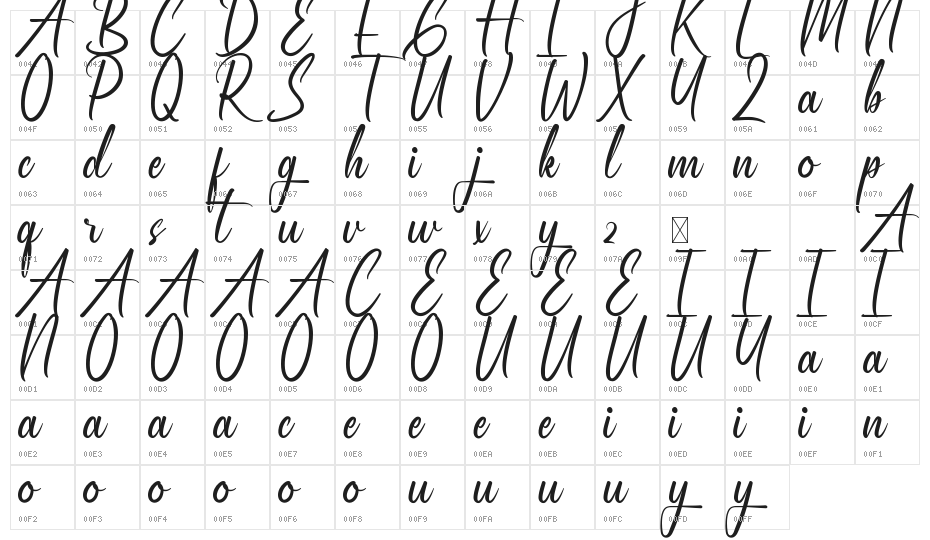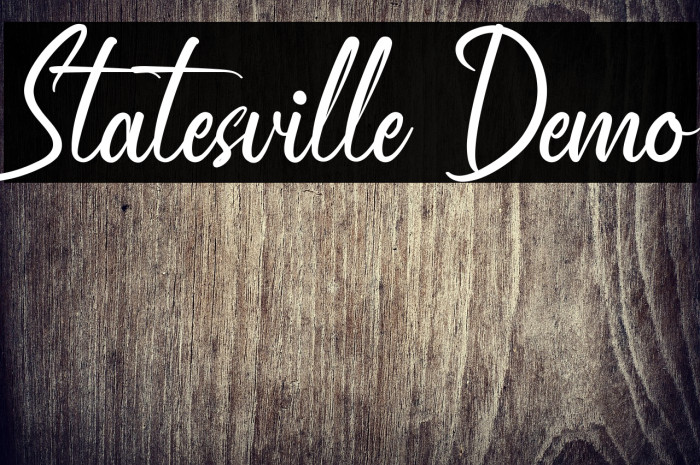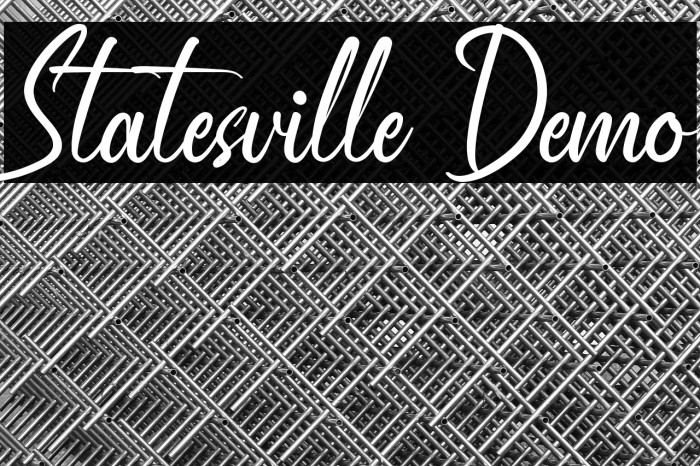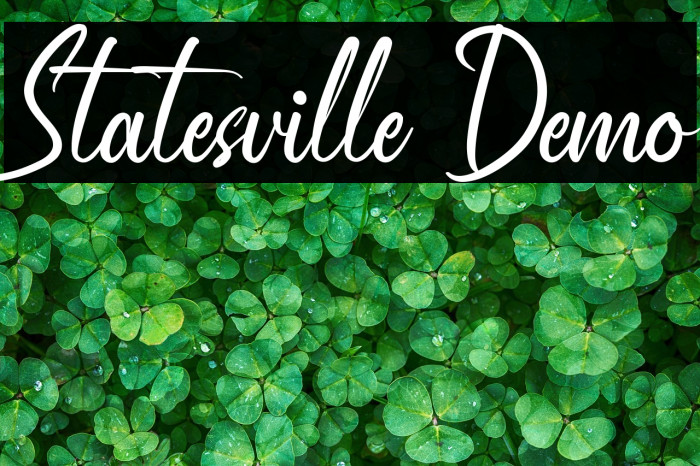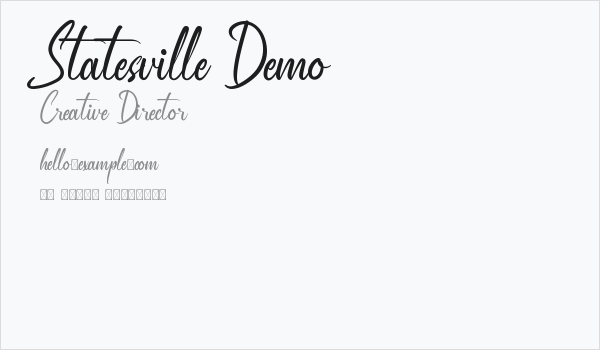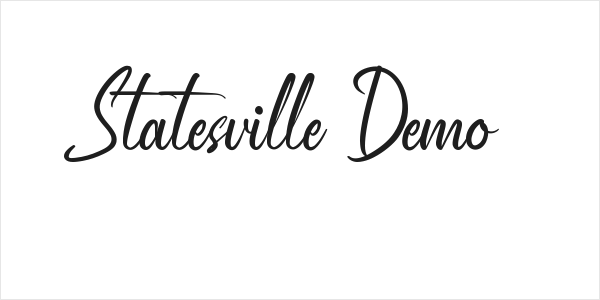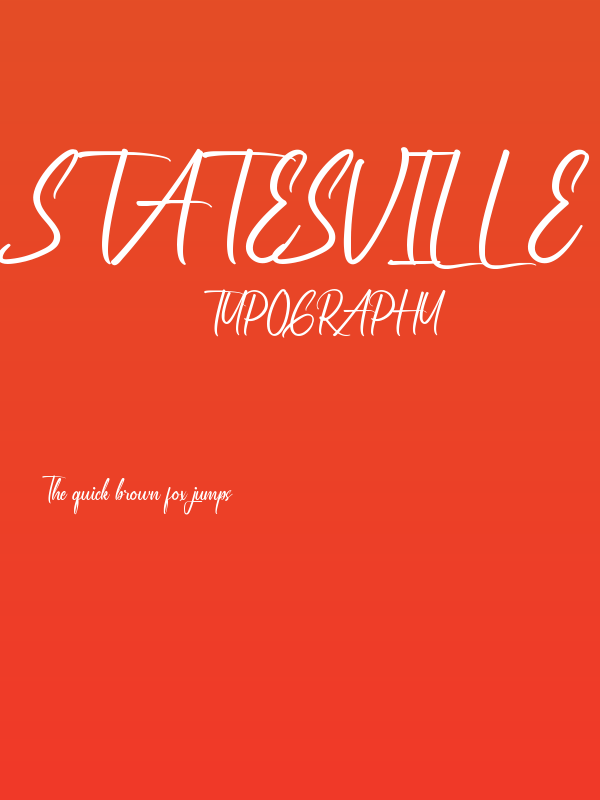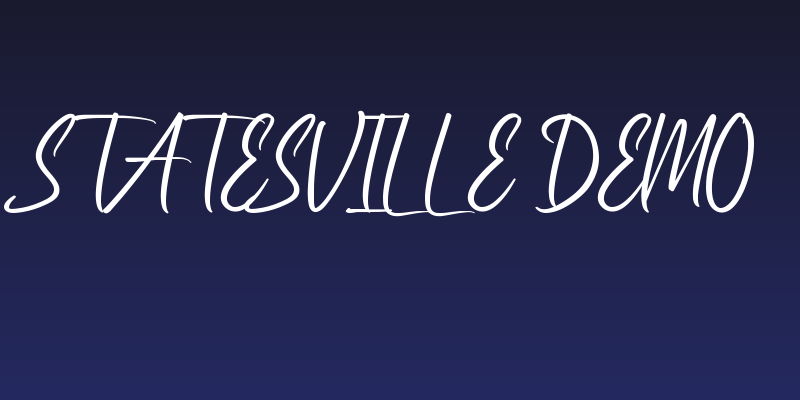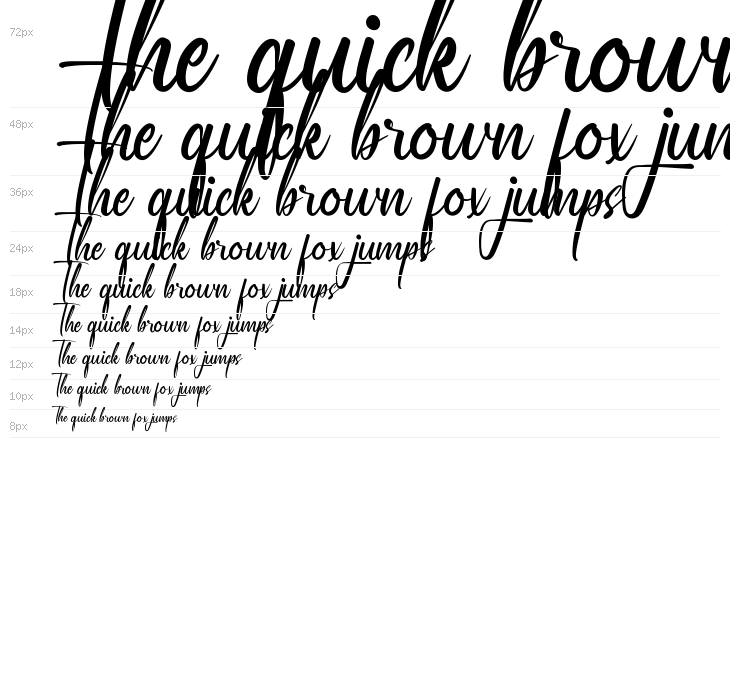
Statesville Demo Font
Statesville Demo Description
This font features a dynamic and flowing script style, characterized by its elegant and fluid letterforms. The uppercase letters are tall and slender, with a slight slant that adds a sense of motion and grace. The lowercase letters are more compact, maintaining the same slant and fluidity, creating a harmonious balance between the two cases. The strokes are smooth and continuous, with a moderate contrast between thick and thin lines, enhancing the font's readability while retaining its decorative appeal. The overall design exudes a sense of sophistication and modernity, making it suitable for a variety of creative applications.